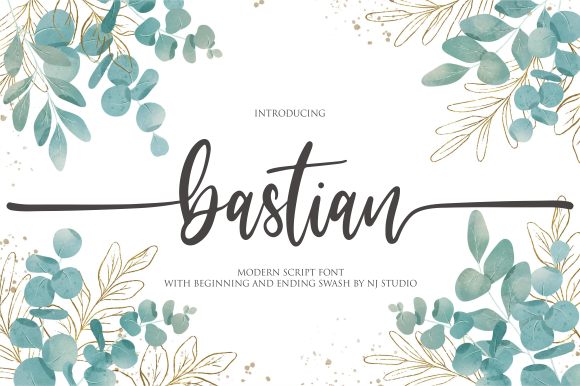
Step into the world of Bastian Font, a script masterpiece that will captivate your senses and ignite the spark of luxury in your creative endeavors. This enchanting light handwritten font possesses a distinct charm that breathes life into your designs, leaving an unforgettable mark on every project you undertake.
With its graceful strokes and elegantly crafted glyphs, Bastian Font holds the power to transform ordinary words into extraordinary expressions. It's a font that speaks of elegance, sophistication, and timeless beauty, making it the perfect choice for those yearning to add a touch of splendor to their creations.
Unleash your imagination and allow Bastian Font to guide you on a journey of creative exploration. Its versatility knows no bounds, lending itself seamlessly to an array of projects, including logos, branding, invitations, packaging, and social media graphics. Let your creativity soar as you witness the transformation of your designs into captivating works of art.
Tailored meticulously for Procreate, Bastian Font offers unmatched ease of use. Access the full spectrum of its characters, including stunning glyphs and ligatures, with effortless ease, thanks to its PUA encoding. Experience the joy of seamless integration and let your creative ideas take center stage.
Embrace the allure of Bastian Font and embark on a creative journey unlike any other. Let your designs radiate sophistication, exude elegance, and leave a lasting impression on your audience. Immerse yourself in the world of Bastian Font and discover the boundless possibilities it holds for your creative endeavors.